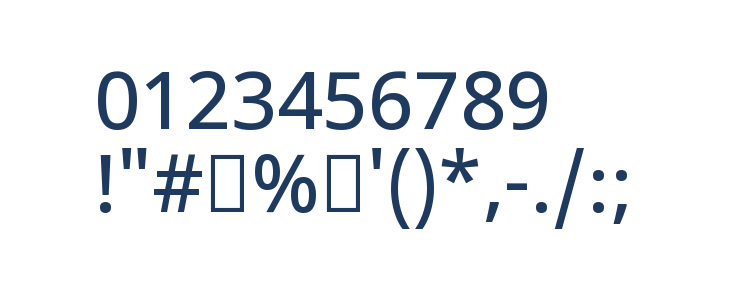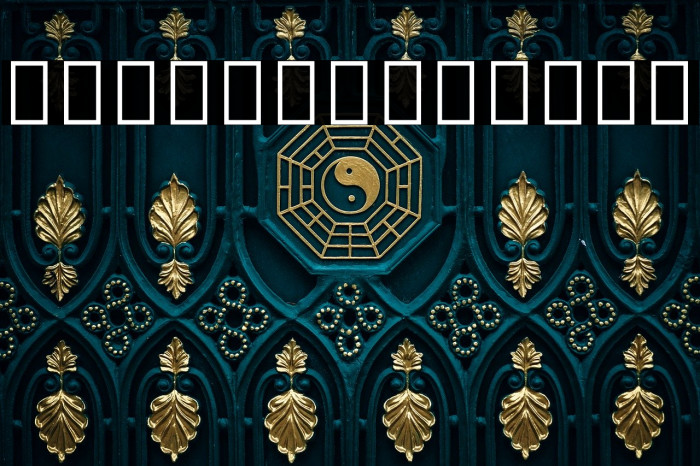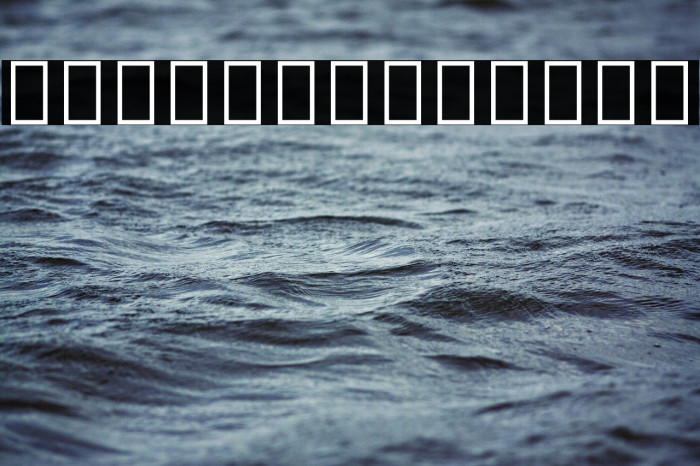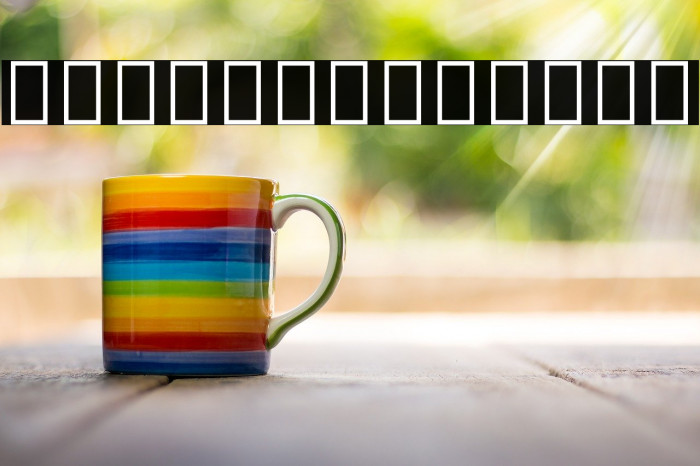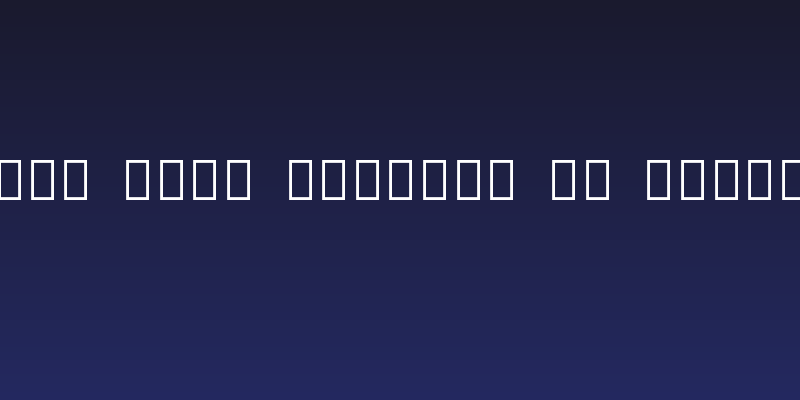
Noto Sans Sinhala UI Medium Font
Noto Sans Sinhala UI Medium Description
This font is a clean and modern sans-serif typeface, characterized by its simplicity and readability. It features uniform stroke widths and a balanced structure, making it versatile for various applications. The design is straightforward, with rounded edges that soften the overall appearance, providing a friendly yet professional look. The numerals and special characters are clear and distinct, ensuring legibility across different mediums. This font is suitable for digital interfaces and print, offering a contemporary aesthetic that aligns with current design trends.